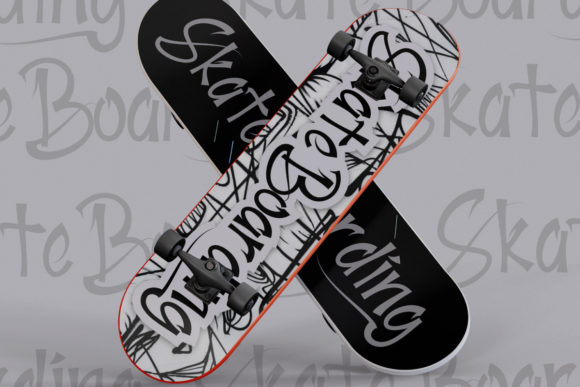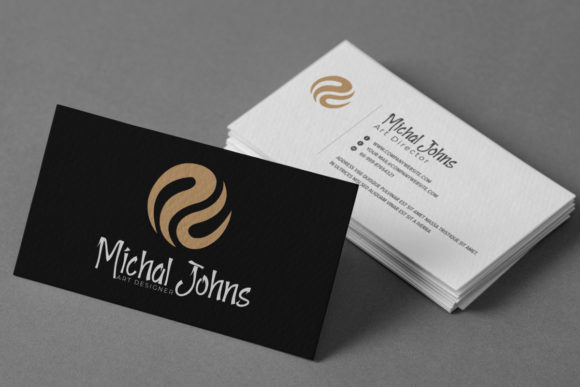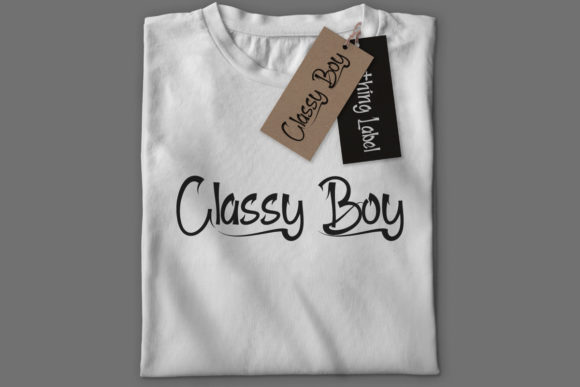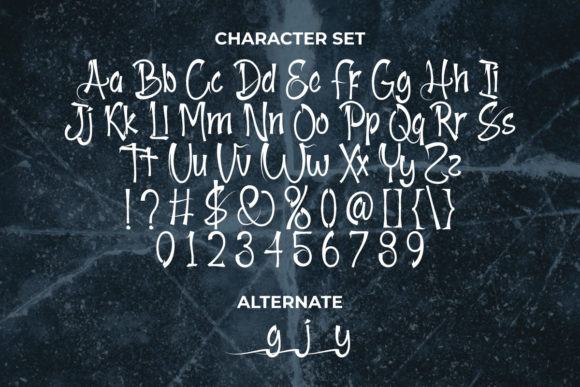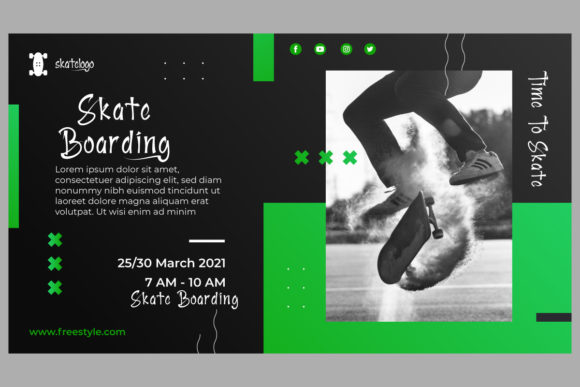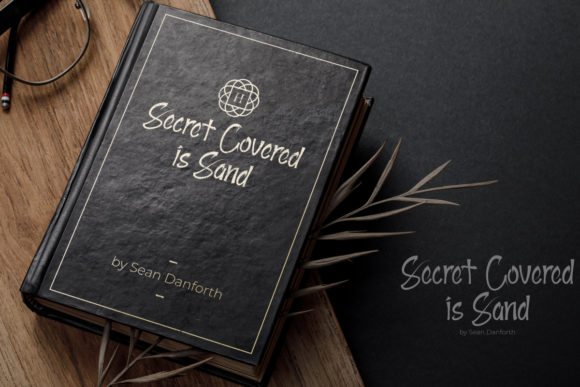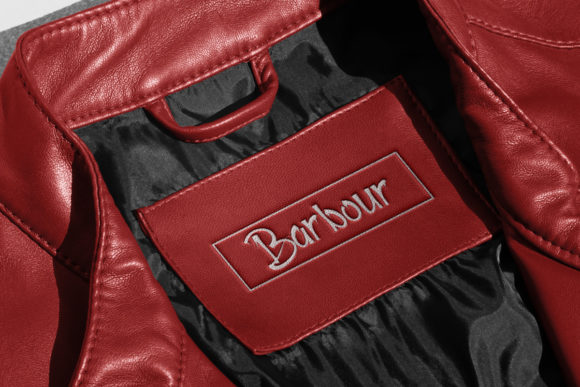
Ice Breaking Font
About Ice Breaking Font
Ice BreakingĀ is a casual and friendly script font that emanates confidence and versatility. Its stylish alternates and ligatures make this font the perfect match for any project.